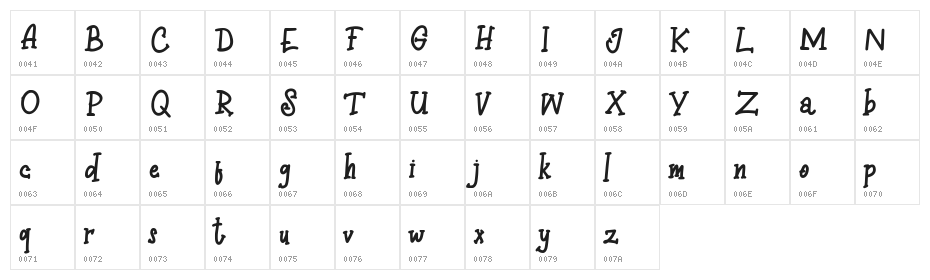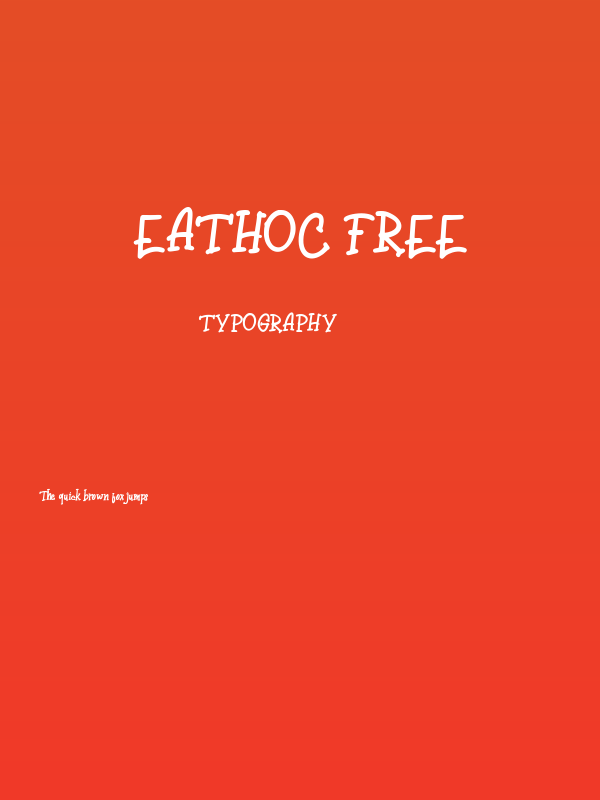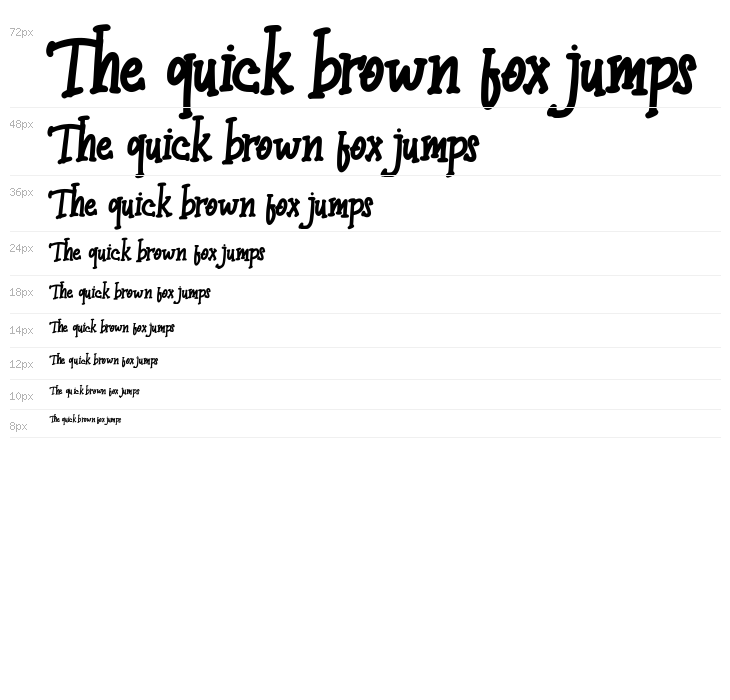
Eathoc FREE Font
Eathoc FREE Description
This font features a playful and whimsical style with a handwritten appearance. The characters are bold and slightly irregular, giving them a casual and friendly look. The uppercase letters are tall and narrow, while the lowercase letters have a more rounded and fuller form. The font includes a full set of uppercase and lowercase letters, numbers, and a selection of special characters. Its unique style makes it suitable for creative projects that require a personal touch.
EATHOC-FREE UPPERCASE
EATHOC-FREE LOWERCASE
EATHOC-FREE OTHER CHARS
| Proposed Projects | Ideal for greeting cards, children's books, playful branding, and creative posters. |